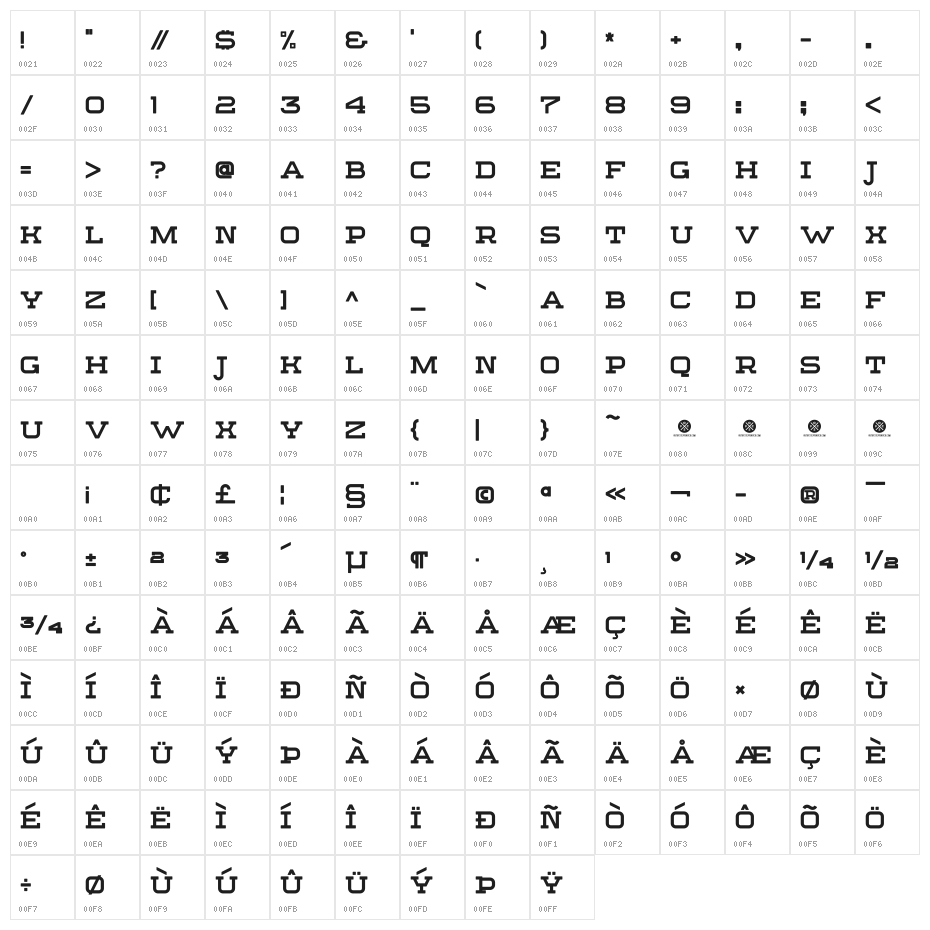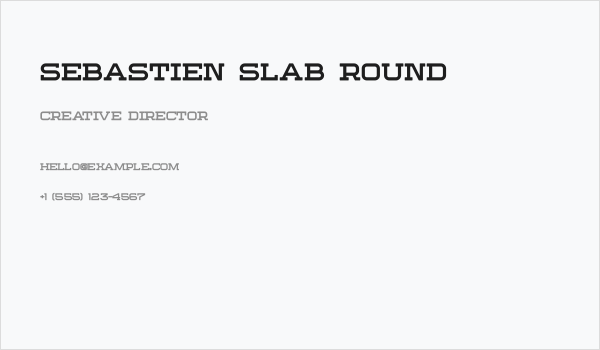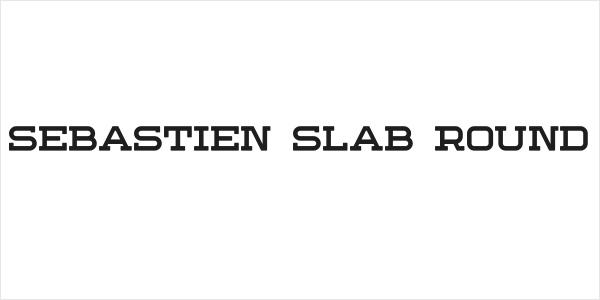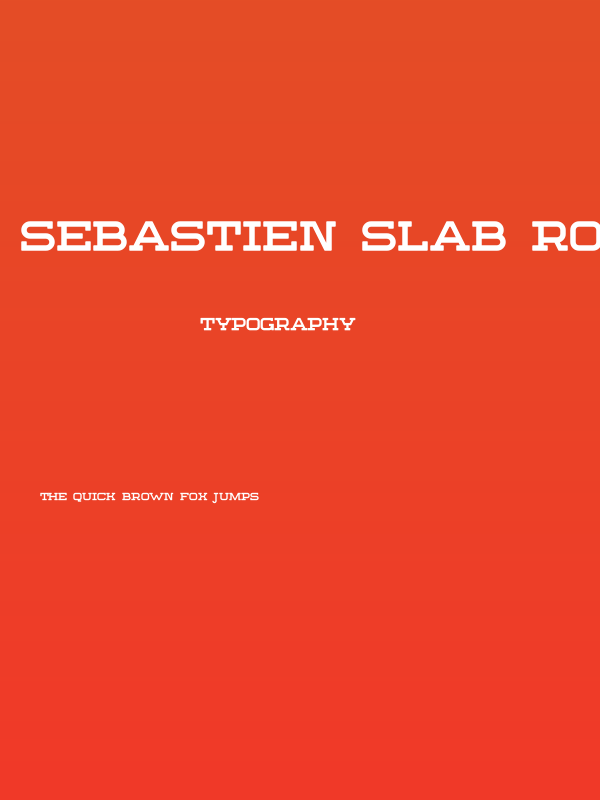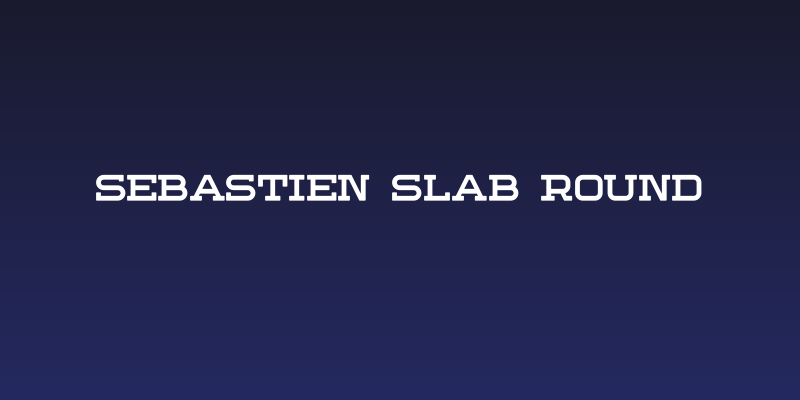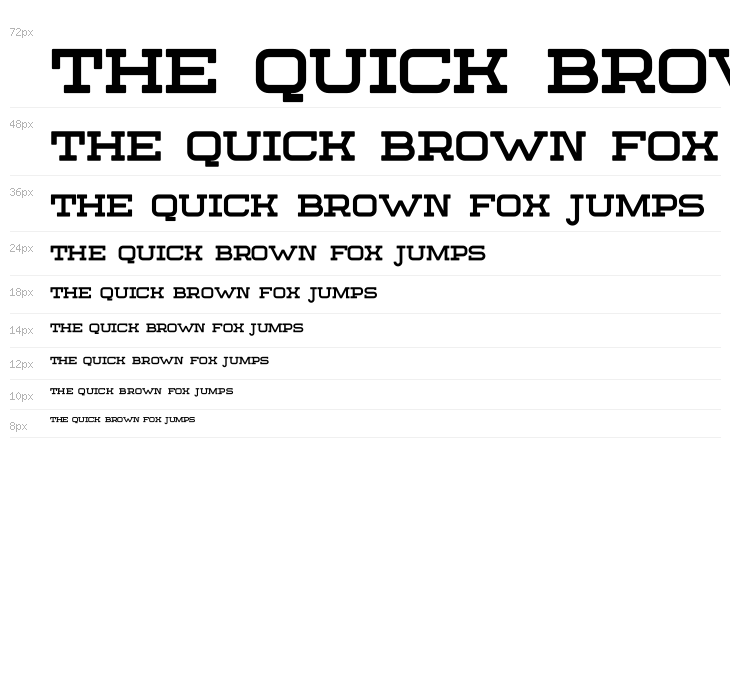
Sebastien Slab Round Font
Sebastien Slab Round Description
This font features a robust and bold slab serif style with rounded edges, giving it a modern yet approachable appearance. The characters are well-defined with a strong presence, making it suitable for attention-grabbing headlines. The uppercase letters exhibit a uniform height, while the numerals are distinct and easily readable. Special characters are designed with the same boldness, ensuring consistency across all glyphs. The overall design balances strength with a touch of softness due to the rounded corners, making it versatile for various design needs.
| Proposed Projects | Ideal for branding, advertising, poster design, and any project requiring a strong visual impact. |